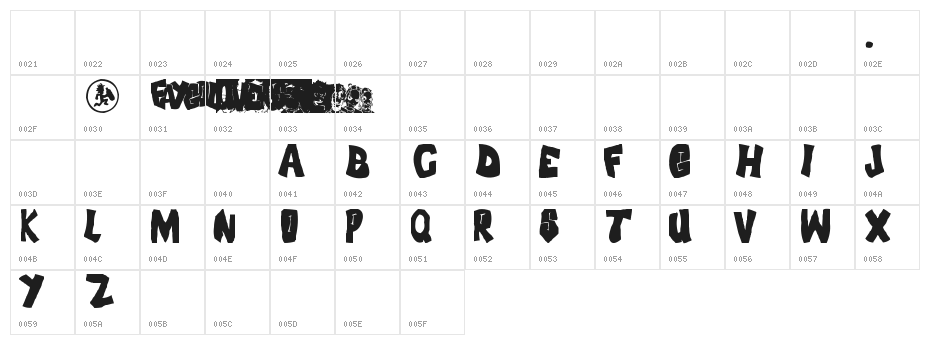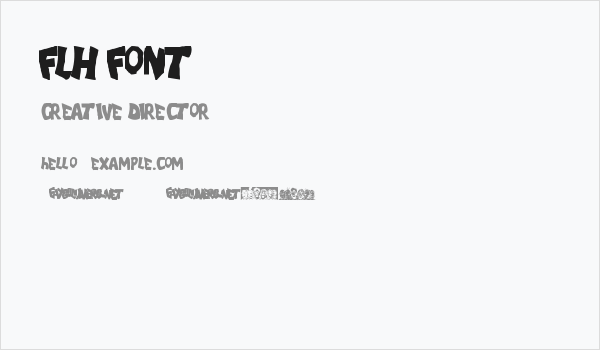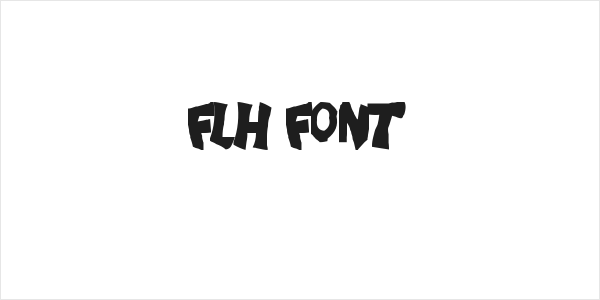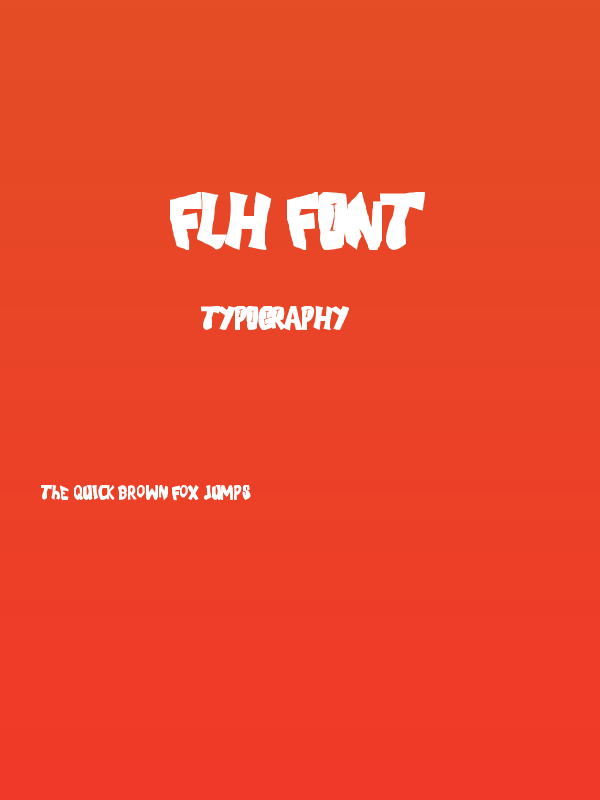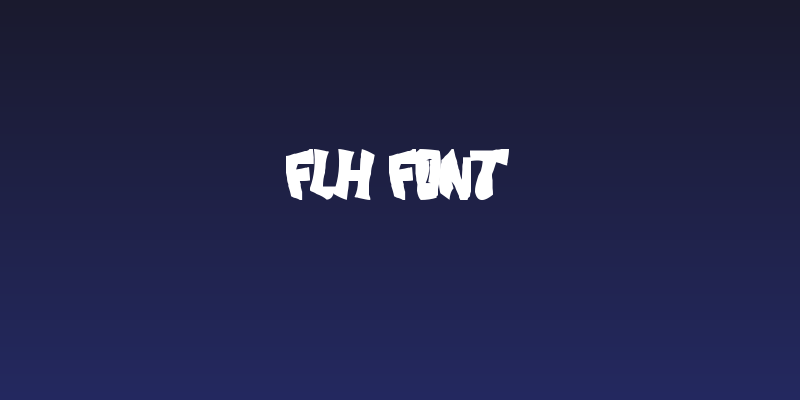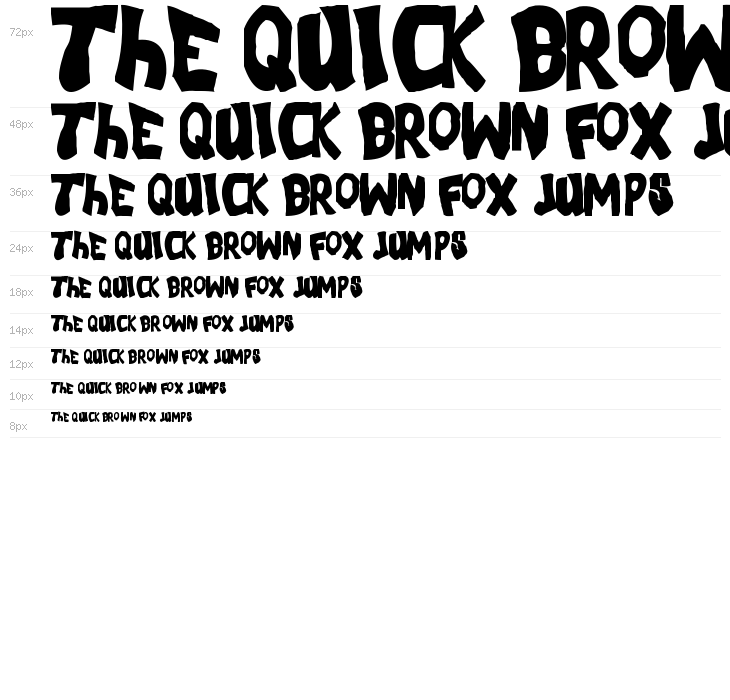
FLH-Font Font
FLH-Font Description
This font features a bold and dynamic style with a graffiti-inspired aesthetic. The letters are characterized by their thick, uneven strokes and angular shapes, giving them a rugged and edgy appearance. The uppercase and lowercase letters maintain a consistent style, with exaggerated curves and sharp edges that create a sense of movement and energy. The numbers and special characters follow the same design principles, ensuring a cohesive look across all elements. This font is perfect for projects that require a bold and eye-catching display, such as posters, album covers, or street art-inspired designs.
Overall StyleModern, Urban
Proposed ProjectsIdeal for street art designs, music album covers, posters, and urban-themed branding.